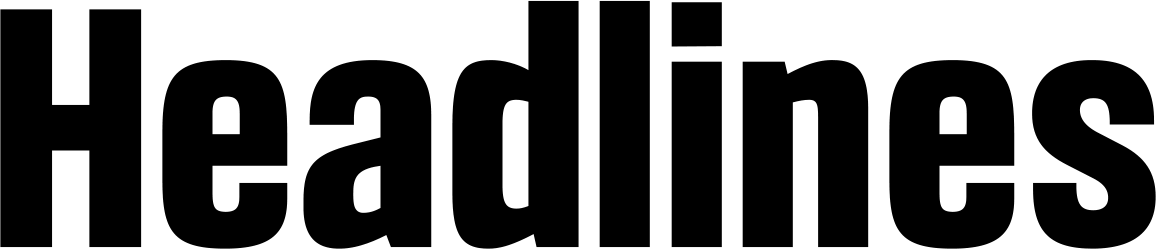
Headlines Font
Designed byTypeThisStudio
Headlines font is among the sans serif fonts presented in two various styles. This title and headline font can be your perfect assistant for designing websites, posters, and many car magazine headers.